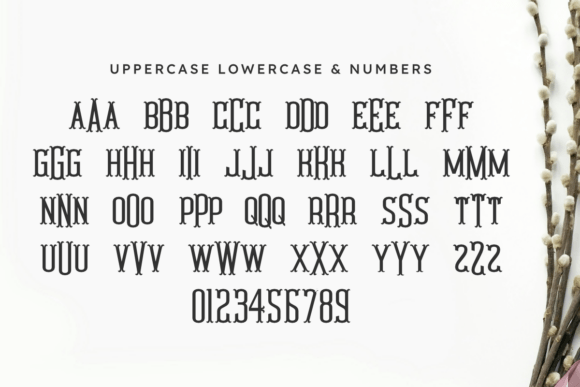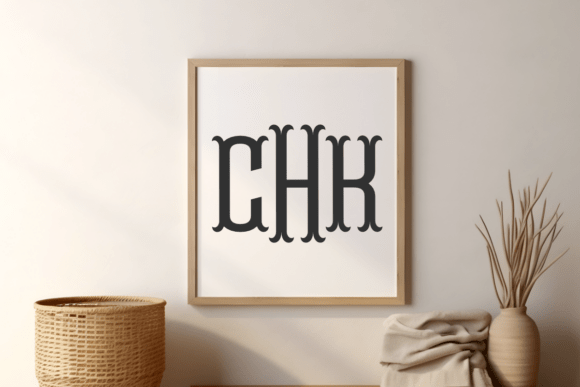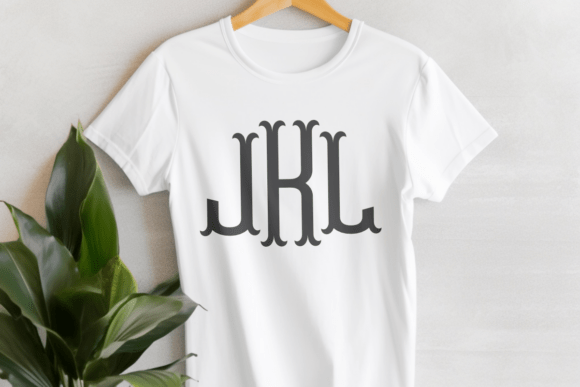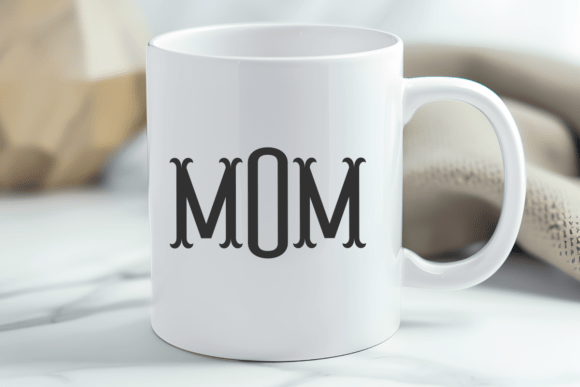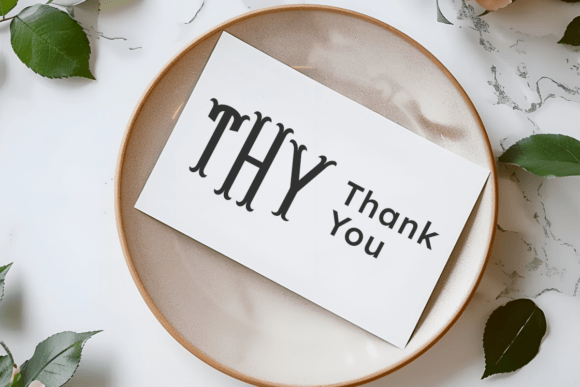
Fishtail Monogram Regular Font: A Sneaky Cool Addition to Your Design Arsenal
Are you tired of using the same old fonts for your creative projects? Look no further! Fishtail Monogram Regular Font is here to shake things up with its unique and refreshing design. Inspired by the carefree vibes of summer and the elegance of fish tails, this monogram font is perfect for designers and crafters looking to add a touch of whimsy to their work.
The Inspiration Behind Fishtail Monogram
Fishtail Monogram’s design is inspired by the fluid, curved lines of fish tails, evoking the feeling of a warm summer breeze. The font’s creator aimed to capture the essence of a season synonymous with freedom, adventure, and playfulness. The result is a font that exudes a sense of fun and creativity, making it an excellent choice for a wide range of projects.
Fishtail Monogram Regular Font is an incredibly versatile font that can be used for various creative endeavors. Whether you’re a designer, crafter, or DIY enthusiast, this font is sure to become a staple in your collection. Here are some ideas to get you started:
• T-shirts and apparel: Add a touch of personality to your tees, hoodies, and other clothing items with Fishtail Monogram.
• Print-on-demand items: Create unique and eye-catching designs for mugs, phone cases, and other print-on-demand products.
• Wall art: Use Fishtail Monogram to create stunning wall decals, posters, and quotes that will add a pop of personality to any room.
• Sweatshirts and baby sweats: Keep your little ones stylish and cozy with adorable monogrammed sweatshirts.
• Mugs and tumblers: Start your day off right with a customized mug or tumbler featuring your name or initials in Fishtail Monogram.
• Logos and branding: Use Fishtail Monogram to create a memorable and distinctive logo for your business or brand.
• Cards and invitations: Add a touch of elegance and sophistication to your correspondence with Fishtail Monogram.
• Tote bags and keychains: Create functional and stylish accessories that showcase your personality.
• Pillows and stickers: Add a personal touch to your home decor and stationery with Fishtail Monogram.
• Cricut projects: Use Fishtail Monogram with your Cricut machine to create intricate and beautiful designs.
• Silhouette projects: Achieve precise and stunning results with Fishtail Monogram and your Silhouette cutting machine.
Why Choose Fishtail Monogram?
So, what sets Fishtail Monogram apart from other fonts? Here are a few reasons why designers and crafters love this font:
• Unique design: Fishtail Monogram’s distinctive design makes it stand out from more traditional fonts.
• Versatility: This font can be used for a wide range of projects, from digital designs to physical products.
• Ease of use: Fishtail Monogram is easy to read and works well in various contexts, from large headlines to small text.
• Customization: With Fishtail Monogram, you can create personalized products that showcase your personality or brand.
Tips for Using Fishtail Monogram
To get the most out of Fishtail Monogram, here are some tips to keep in mind:
• Experiment with colors: Fishtail Monogram looks great in a variety of colors, from bold and bright to soft and pastel.
• Play with sizes: This font works well in large and small sizes, making it perfect for headlines, body text, and more.
• Mix and match: Combine Fishtail Monogram with other fonts to create visually interesting and dynamic designs.
• Don’t be afraid to get creative: Fishtail Monogram is a versatile font that can be used in many different ways, so don’t be afraid to try new things!
In conclusion, Fishtail Monogram Regular Font is a sneaky cool addition to any design arsenal. Its unique design, versatility, and ease of use make it perfect for a wide range of creative projects. Whether you’re a designer, crafter, or DIY enthusiast, Fishtail Monogram is sure to become a favorite font. So why wait? Download Fishtail Monogram today and start creating stunning designs that showcase your personality and style!